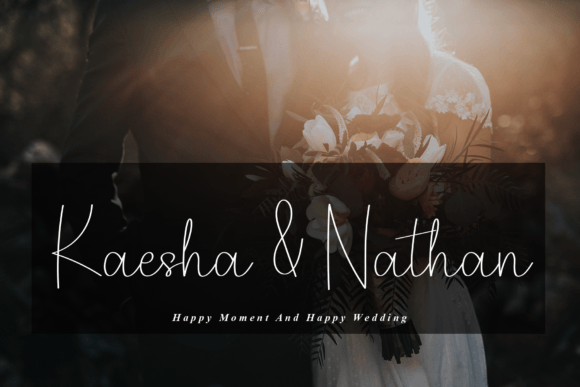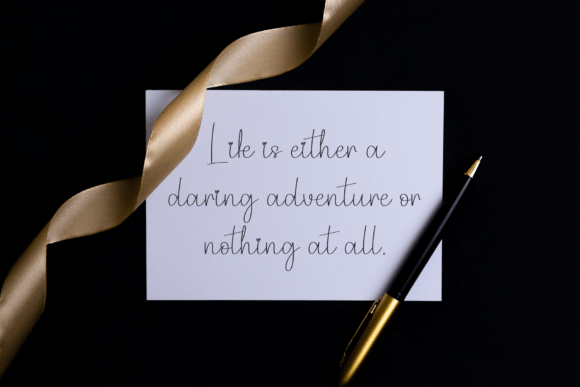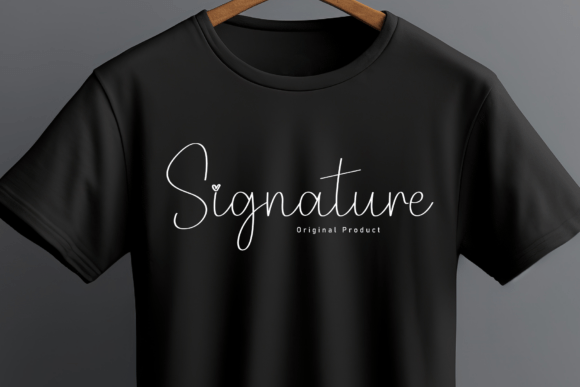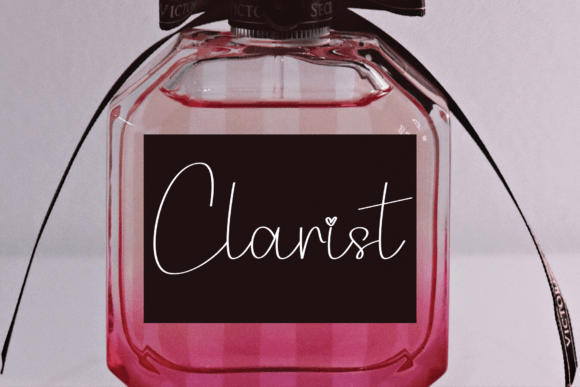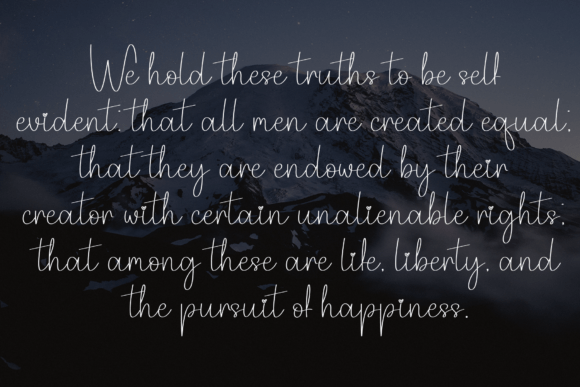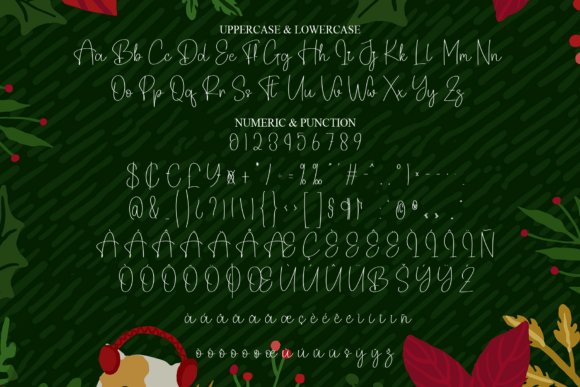
The Magic of the Grinch Christmas Font: Elevate Your Holiday Designs
As the holiday season approaches, I find myself getting into the creative spirit. There’s something about the twinkling lights, the sound of festive music, and the aroma of hot chocolate that sparks my imagination. This year, I’m excited to share with you a font that captures the essence of the holiday season: the Grinch Christmas Font. With its elegant and charming script style, this font is perfect for adding a touch of sophistication to your holiday designs.
Whether you’re creating invitations, logos, or branding materials, the Grinch Christmas Font is a valuable addition to your design toolkit. Its delicate strokes bring warmth and creativity to your projects, making it a must-have for designers who want to make a lasting impression. With the Grinch Christmas Font, you can add a personal and elegant touch to your holiday designs, making them truly unforgettable.
Grinch Christmas Font Key Features
- Font Family: Grinch Christmas Font is a unique, handwritten font designed to resemble the Grinch’s handwriting from the classic Dr. Seuss story.
- Size: The font comes in a single weight, with a standard character set and a range of glyphs suitable for most typographic applications.
- Unique Characteristics: The font’s irregular, handwritten feel and distinctive letterforms evoke the Grinch’s grumpy personality, adding a touch of whimsy and humor to any design.
Grinch Christmas Font Review
Overall, I’d say the Grinch Christmas Font is a fun and quirky addition to any holiday project. ✨ Its unique, hand-drawn style effectively captures the grumpy yet lovable spirit of the Grinch character.
- Unique and whimsical design that stands out from more traditional holiday fonts
- Effectively conveys a sense of playfulness and fun
- Good for projects that need a bit of an edge or a non-traditional touch
However, there are a few limitations to consider: ⚠️ The font may be a bit too whimsical for projects that require a more serious or professional tone. Additionally, the font’s size and spacing may require some manual adjustments to ensure proper legibility.
- May not be suitable for projects that require a more formal tone
- Font size and spacing may require manual adjustments for optimal legibility
Overall, I’d recommend the Grinch Christmas Font for projects that need a fun, non-traditional touch. Just be mindful of its limitations and use it judiciously to avoid overwhelming your audience.
The “Grinch Christmas Font” is perfect for:
Christmas card designs and invitations
Seasonal social media posts and graphics
Holiday-themed posters and flyers
Adding a touch of Grinchy charm to your holiday decorations and decor
Alternatives to Grinch Christmas Font for Designers
Courier Prime
Courier Prime is a monospaced sans-serif font that is perfect for creating a modern and clean look for your designs. It’s ideal for use in digital applications, brochures, and posters where a simple and elegant font is needed.
Compared to Grinch Christmas Font, Courier Prime has a more neutral and minimalist look, which makes it suitable for various design projects. While Grinch Christmas Font is specifically designed for a festive look, Courier Prime can be used for a wide range of designs, from business cards to websites.
Avenir Next
Avenir Next is a geometric sans-serif font that is ideal for creating a sophisticated and modern look for your designs. It’s perfect for use in high-end branding, luxury packaging, and editorial designs where a sleek and elegant font is needed.
Compared to Grinch Christmas Font, Avenir Next has a more refined and luxurious look, which makes it suitable for premium designs. While Grinch Christmas Font is specifically designed for a festive look, Avenir Next can be used for designs that require a touch of sophistication and elegance.